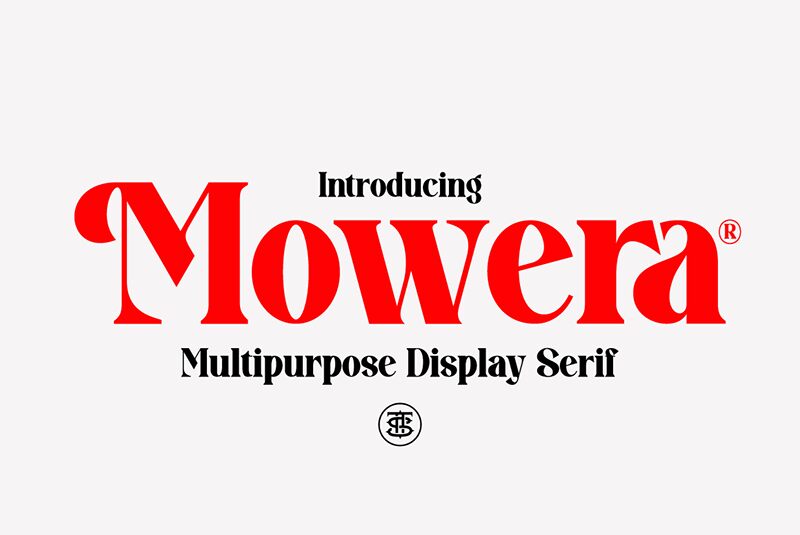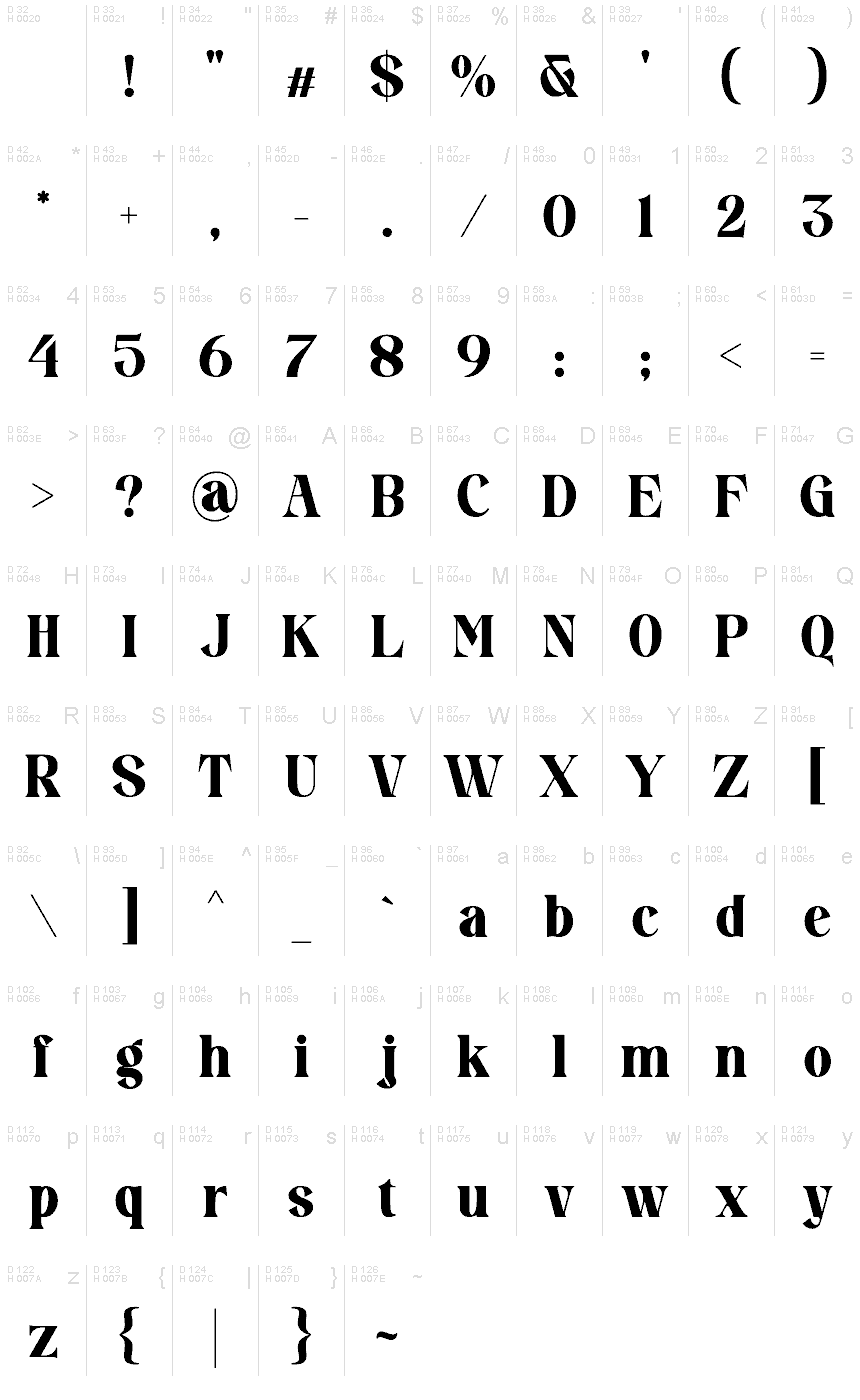
Mowera-Regular
Mowera font by Tebaltipis Studio is a bold display font that brings the best of retro styles to brand new design projects. The bulky characters immediately catch the eye with their carefully designed structures that combine elegance and authority in a refined sophisticated fashion.
Free for use, this classic font combines all these wonderful features for vintage-inspired posters, books/magazines covers, big headings, logos, packaging/label designs among others.